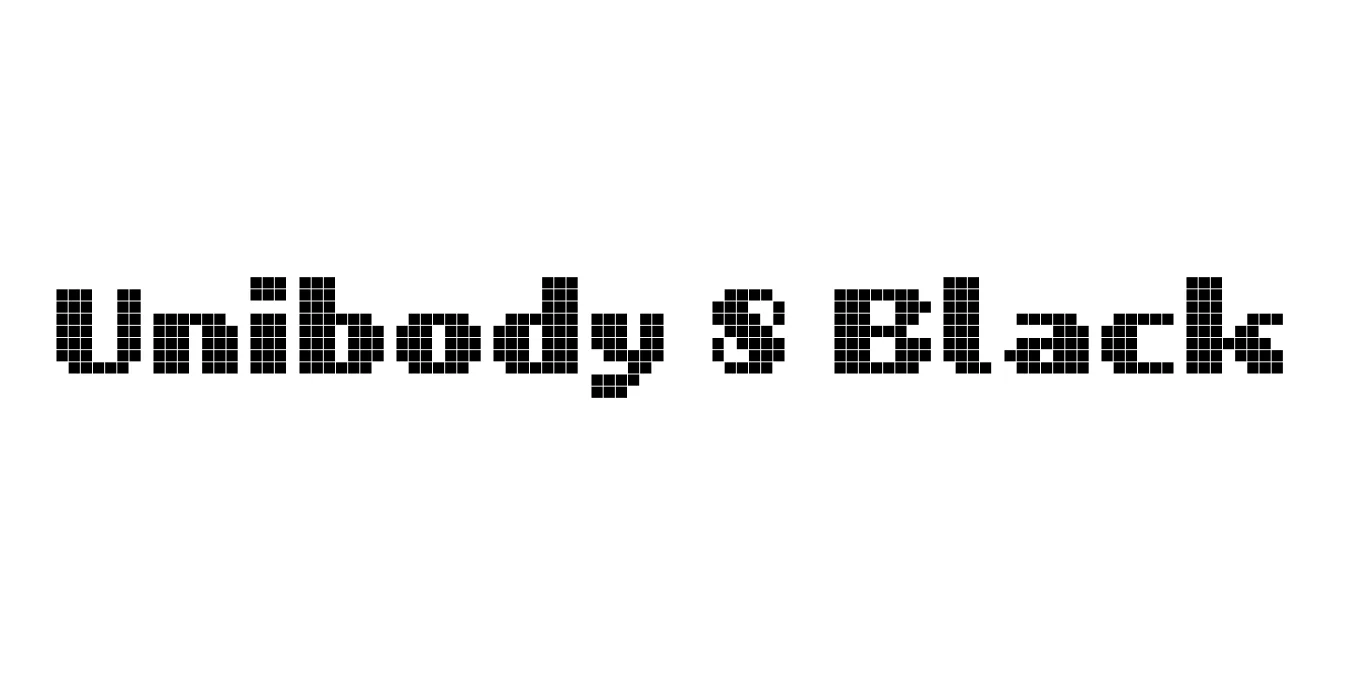
Unibody 8 Black
Designed by Underware
| Category | Pixel / Bitmap |
| Designer | Underware |
Unibody 8 Black is a highly specialized pixel font created by the renowned Dutch type foundry Underware. Designed specifically for the digital screen, it was part of a broader exploration into how typography can maintain its integrity at very small scales. The 'Black' weight offers a dense, robust appearance while adhering to a strict 8-pixel grid, making it an iconic choice for early web design and digital interfaces where space and resolution were at a premium.
The font is celebrated for its technical precision and its ability to remain legible even in complex UI environments. By leveraging a fixed-height system, Unibody 8 Black provides a consistent vertical rhythm that is essential for developers and designers working on low-resolution displays or retro-themed projects. It remains a staple in the toolkit of designers who appreciate the intersection of mathematical constraints and typographic elegance.
Unibody 8 Black Best Uses
Perfect for low-resolution user interfaces and dashboard displays.
Ideal for retro-style indie games or 8-bit aesthetic projects.
Great for small captions or decorative elements that require a digital look.
Suitable for tech-focused brands looking for a pixel-perfect identity.